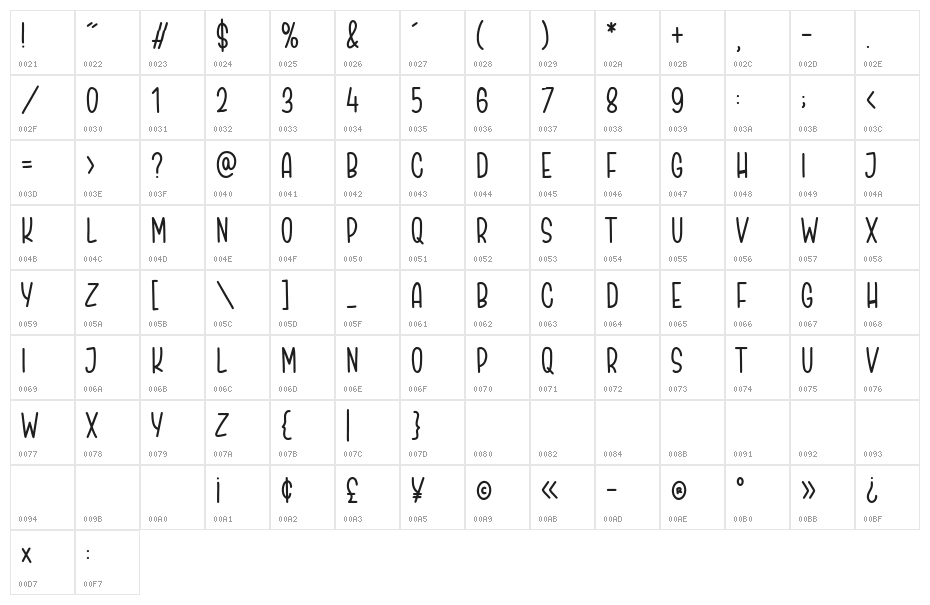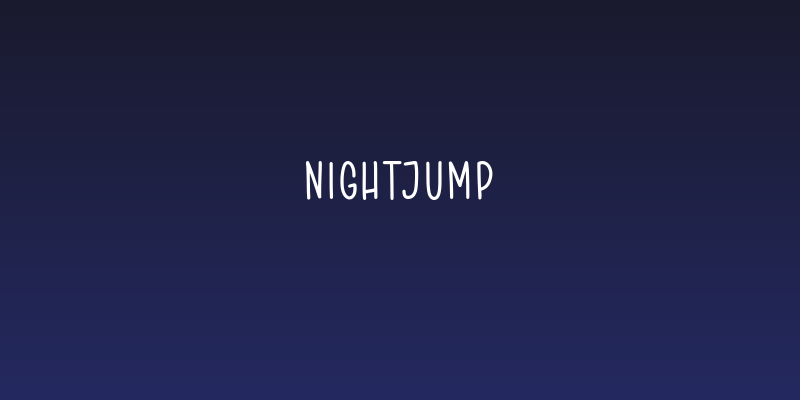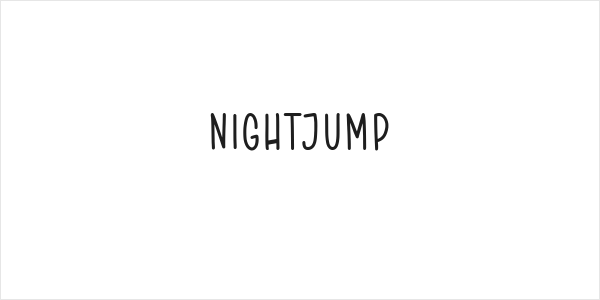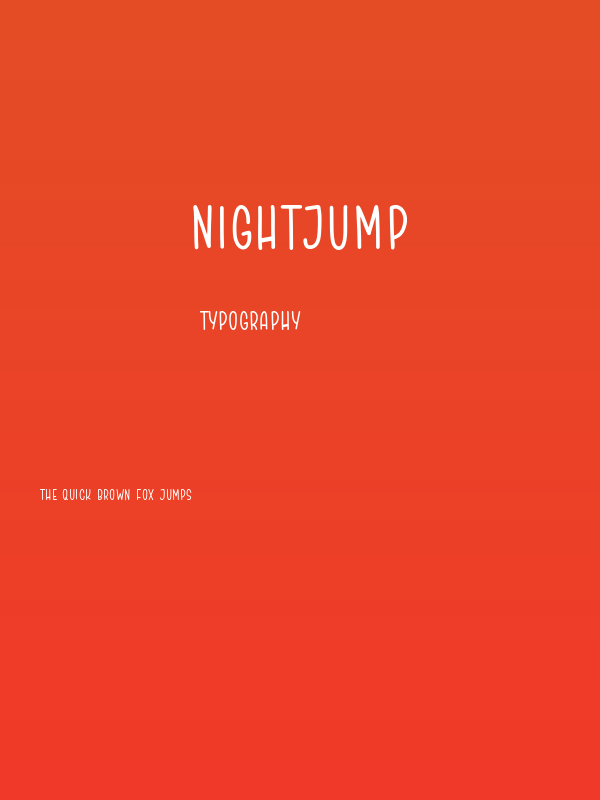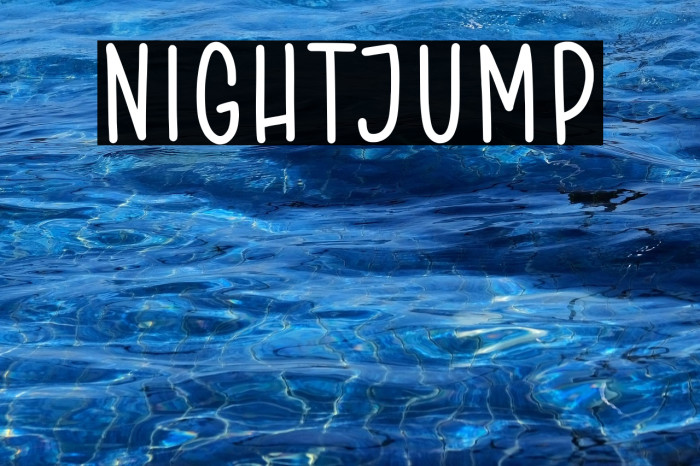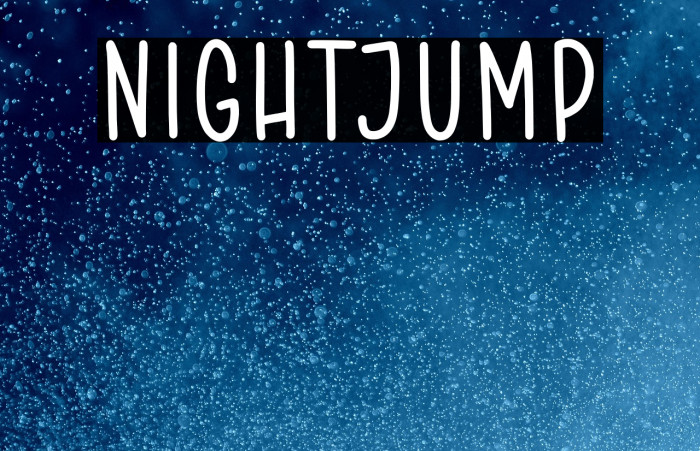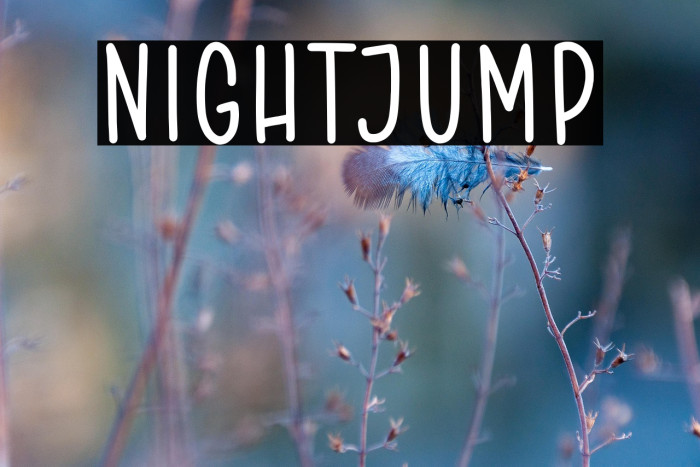
NIGHTJUMP Font
NIGHTJUMP Description
This font features a playful and informal handwritten style, characterized by its smooth curves and slightly elongated letterforms. The uppercase and lowercase letters maintain a consistent flow, creating a sense of movement and energy. The numerals and special characters complement the alphabet with a similar casual aesthetic. The overall appearance is friendly and approachable, making it suitable for projects that require a personal touch. Its legibility is maintained across different sizes, ensuring versatility in various design contexts.
| Use Case | Headlines, Informal text, Branding |
| Proposed Projects | Ideal for greeting cards, children's books, playful branding, and social media graphics. |